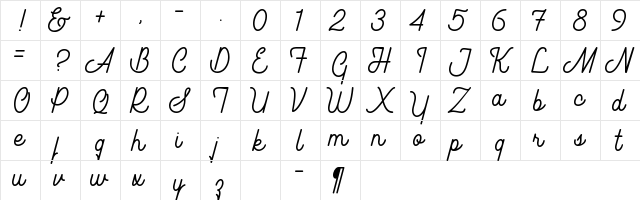
Southfilla Monoline Script Font Regular
Design Context for Southfilla Monoline Script Font Typeface
Southfilla Monoline Script Font flows with the natural rhythm of handwritten lettering, making it ideal for designs that call for warmth and personal expression.
Font Pairing: Combine Southfilla Monoline Script Font with a simple geometric sans for maximum contrast — the tension between flowing curves and clean structure is a classic typographic pairing.
Pro Tip: Use Southfilla Monoline Script Font for short runs of text — names, titles, or taglines. Extended body copy in script faces tires the eye quickly.